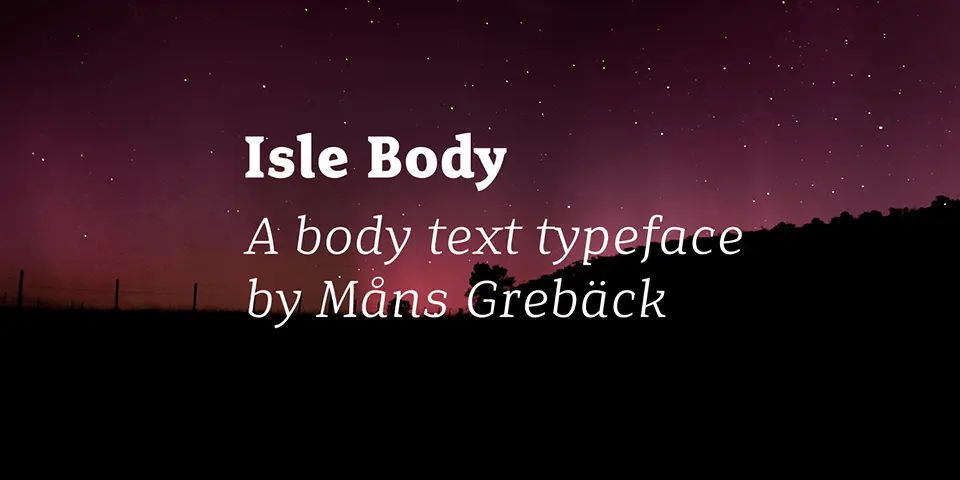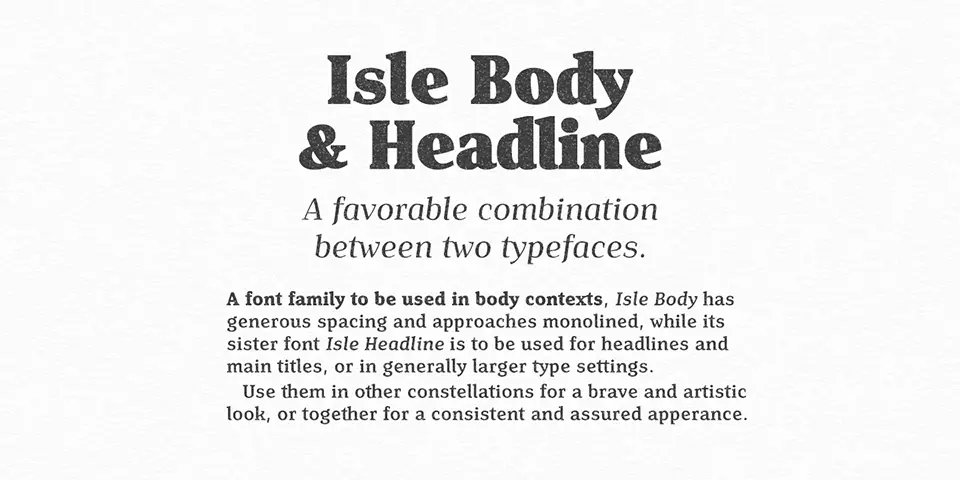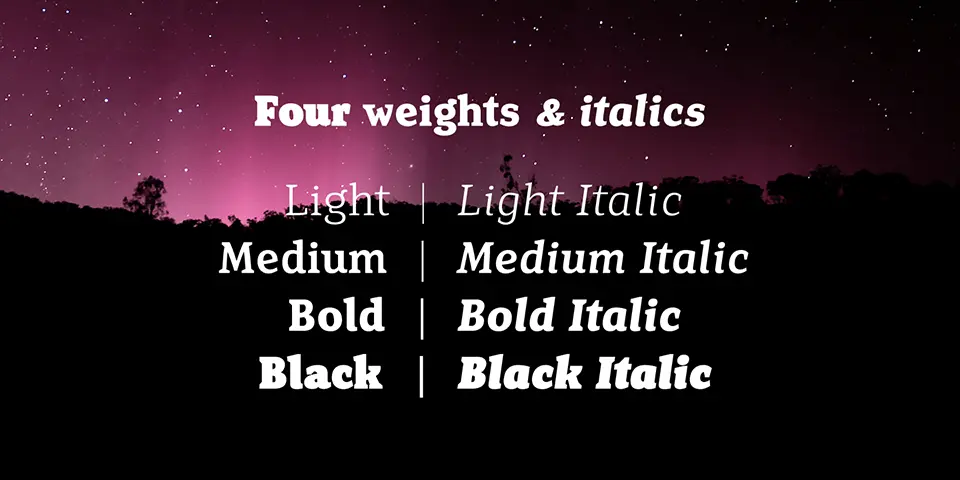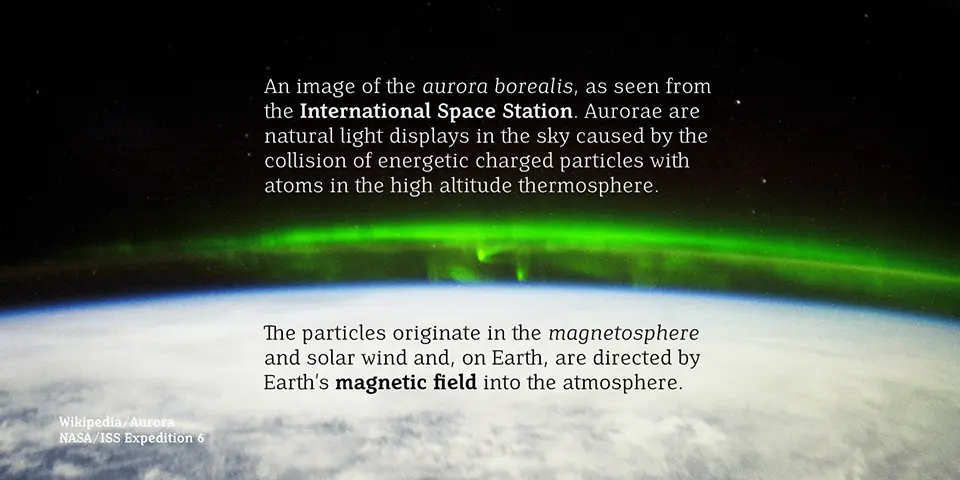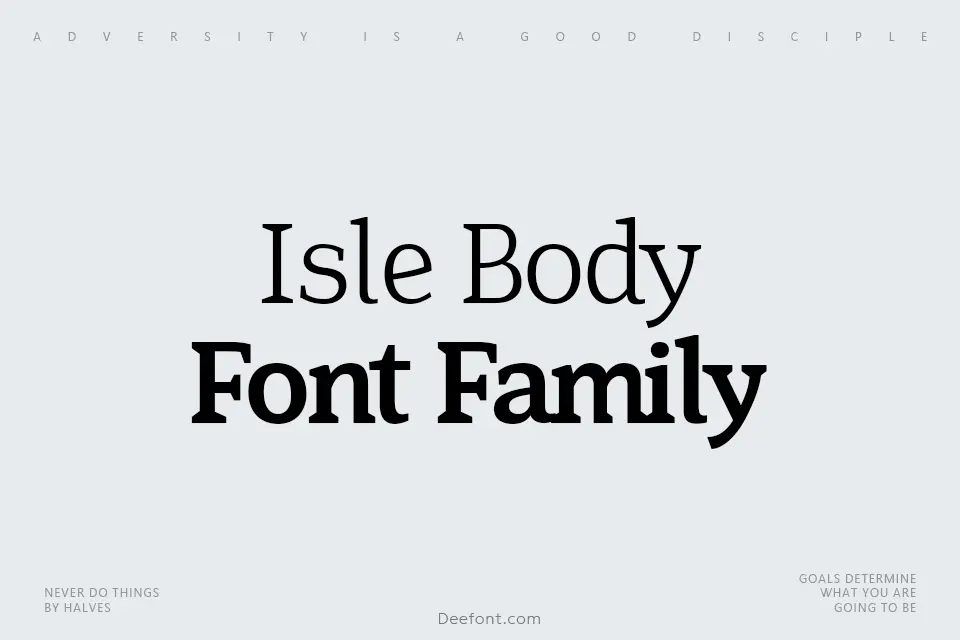
Isle Body Font Family
Isle Body Font Family is a serif typeface designed by Swedish typographer Måns Greback. Tailored for body text, it combines a casual, calm aesthetic with high readability in small sizes, featuring even weight distribution and generous spacing. The family includes eight styles: Light, Medium, Bold, and Black weights, each with matching italics. Its clean, rounded serifs and balanced proportions make it versatile for editorial design, book layouts, and digital content. While the demo version is free for personal use, commercial projects require a license. Isle Body pairs seamlessly with its sharper counterpart, Isle Headline, offering cohesive typographic harmony for mixed-style projects.